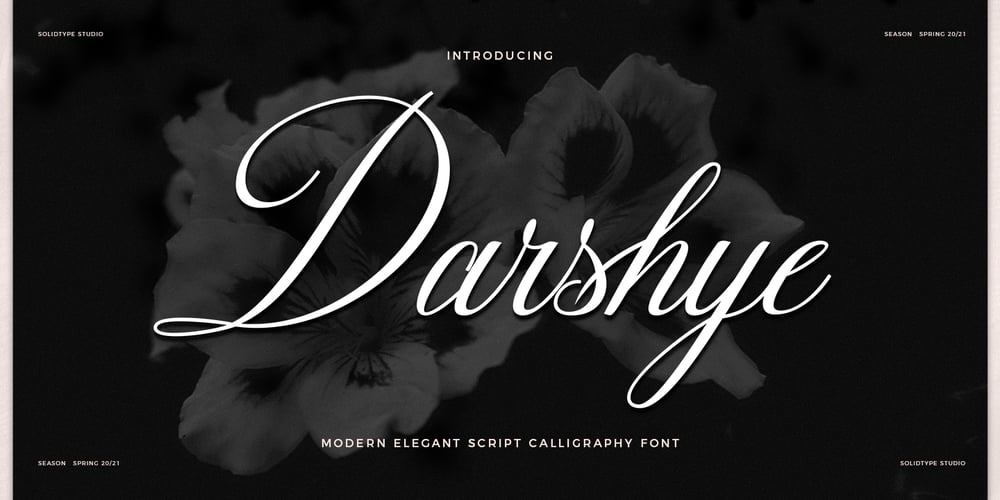
Darshye Script Font Family was designed by Riski Firmana and published by Solidtype. Darshye Script contains 1 styles and family package options. Darshye Script is a calligraphy script font that comes with exquisite character changes, a kind of classic copper decorative script with a modern twist, designed with high detail for an elegant style. Darshye Script is interesting because it has a soft, clean, feminine, sensual, glamorous, simple and very easy to read typeface, because there are many fancy letter joints. I also offer a number of decent stylistic alternatives for multiple letters. Classic style is very suitable to be applied in various formal forms such as invitations, labels, restaurant menus, logos, fashion, make up, stationery, novels, magazines, books, greeting / wedding cards, packaging, labels or any type of advertising purposes.You need a program that supports OpenType features like Adobe Illustrator CS, Adobe Photoshop CC, Adobe Indesign, Microsoft Word 2010. It’s perfect for logos, greetings, branding, quotes, prints, invitations, and crafts. All lowercase letters include an alternate, start & end swash, which makes the font look amazing!These are all coded with the Unicode PUA. Mac users can use Font Book and Windows users can use Character Map to view and copy any additional characters for pasting into your favorite text editor / application.